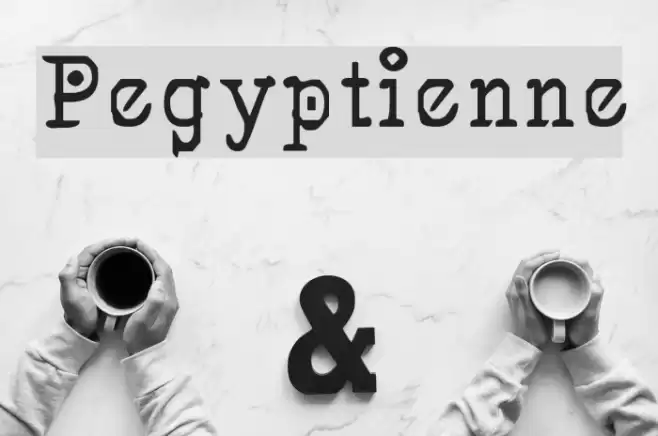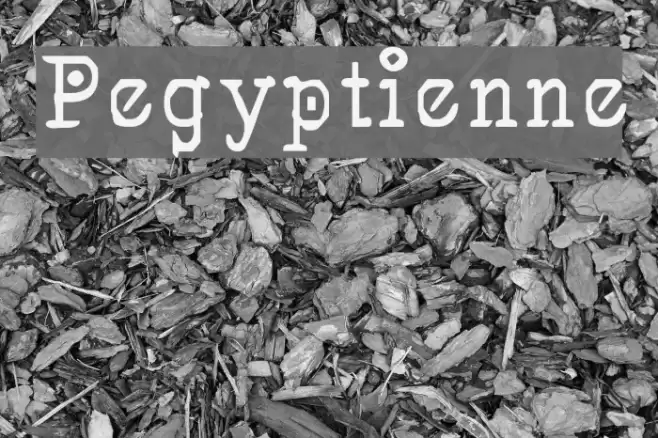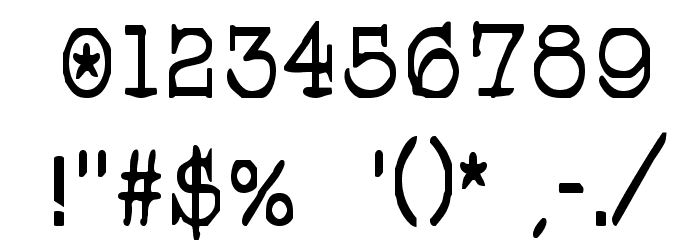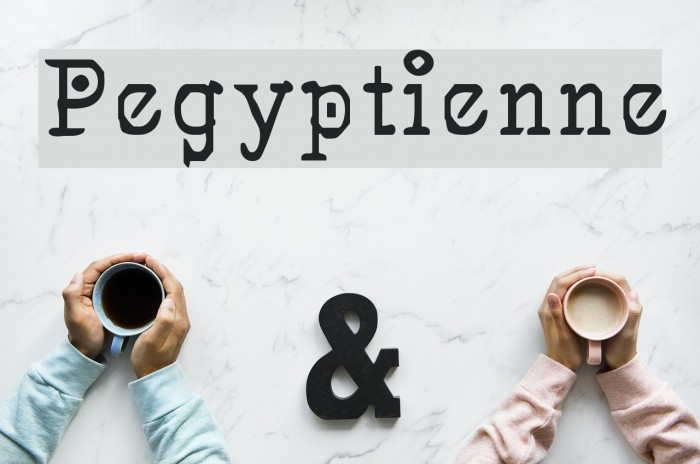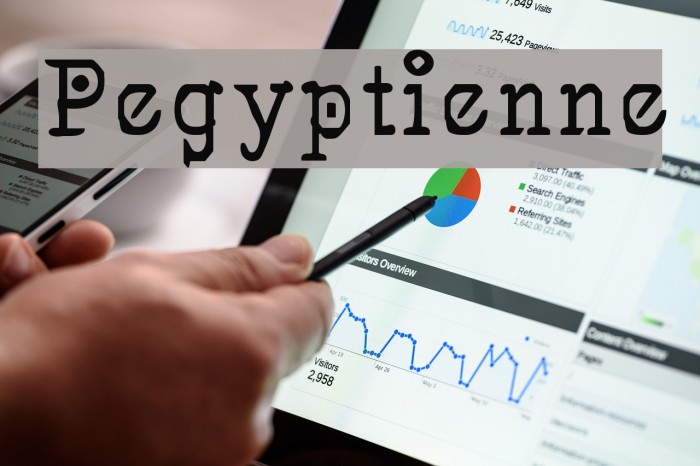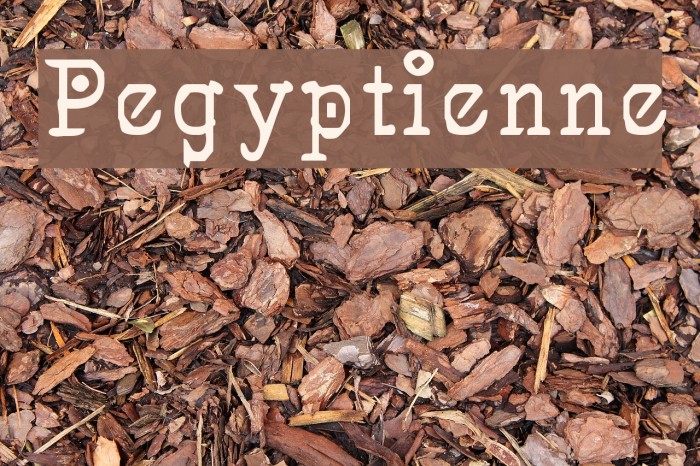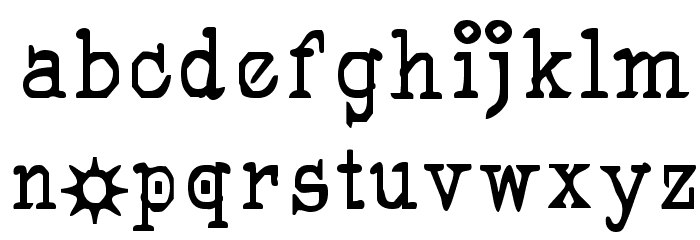
Pegyptienne Font
Pegyptienne Description
This font exhibits a distinctive and playful style, characterized by its unique and quirky letterforms. Each character is crafted with a sense of whimsy, featuring unexpected elements such as decorative loops and unusual serifs. The uppercase letters are bold and commanding, while the lowercase letters maintain a consistent yet lively appearance. The numbers and special characters continue this theme, offering a cohesive and engaging visual experience. The font's overall design is both eye-catching and memorable, making it suitable for creative and artistic projects.
A whimsical and decorative font with unique letterforms and playful elements from Decorative fonts.